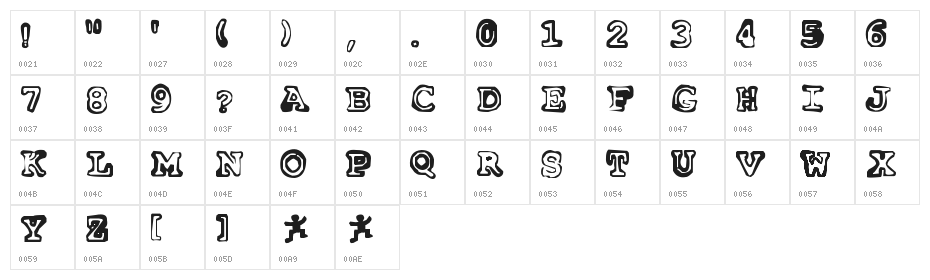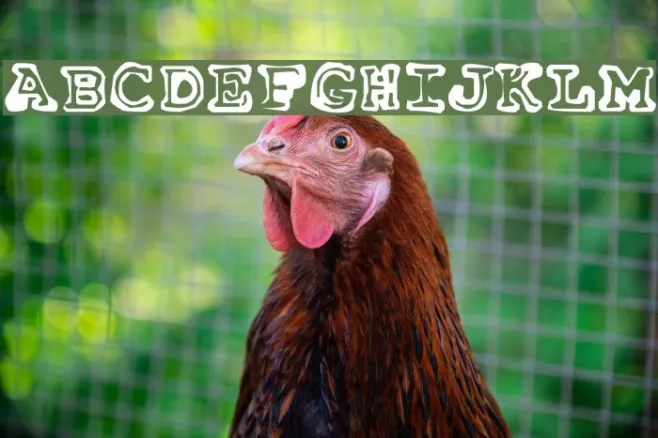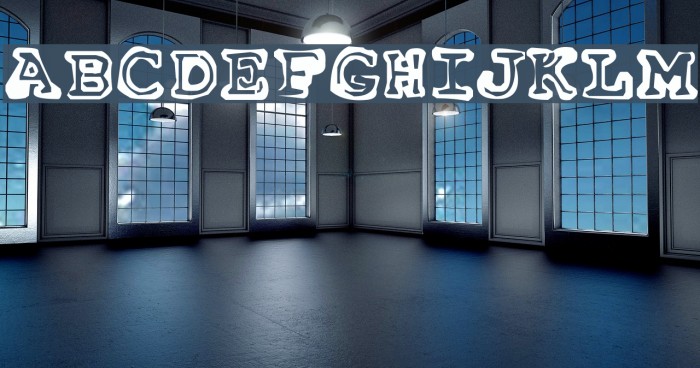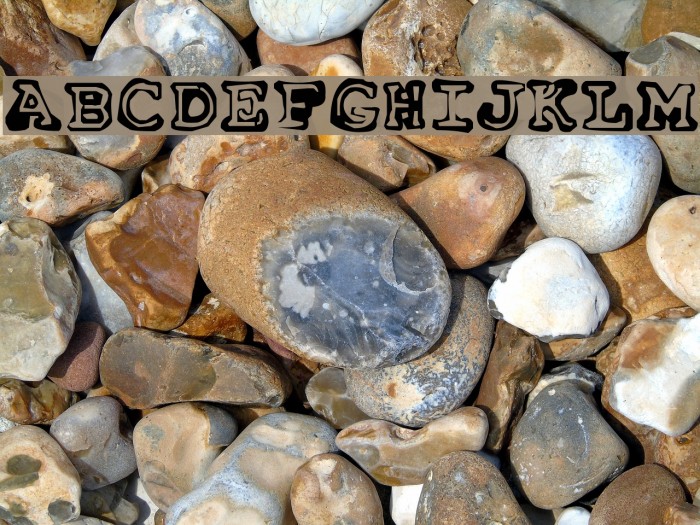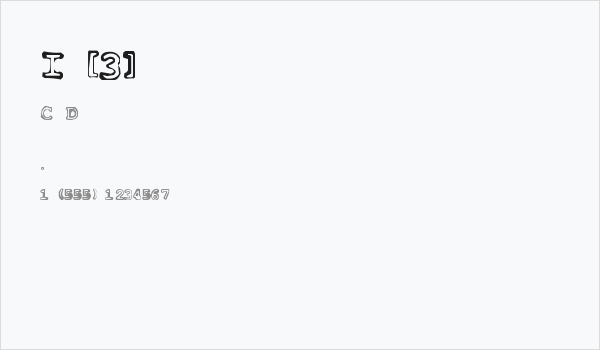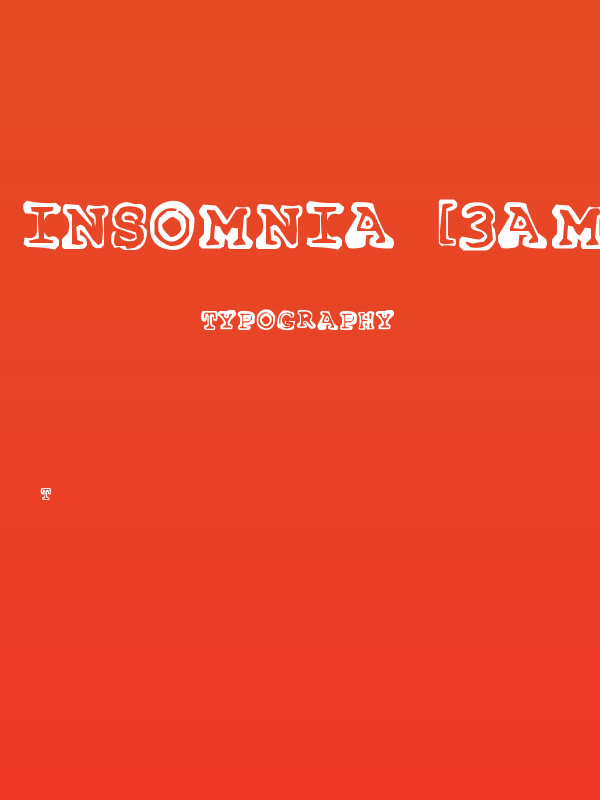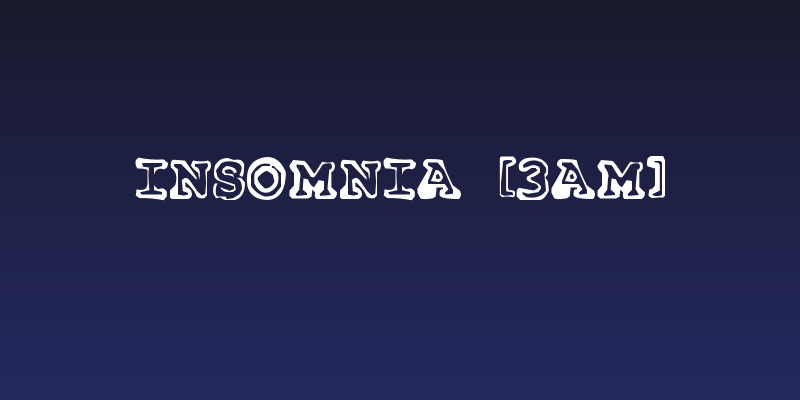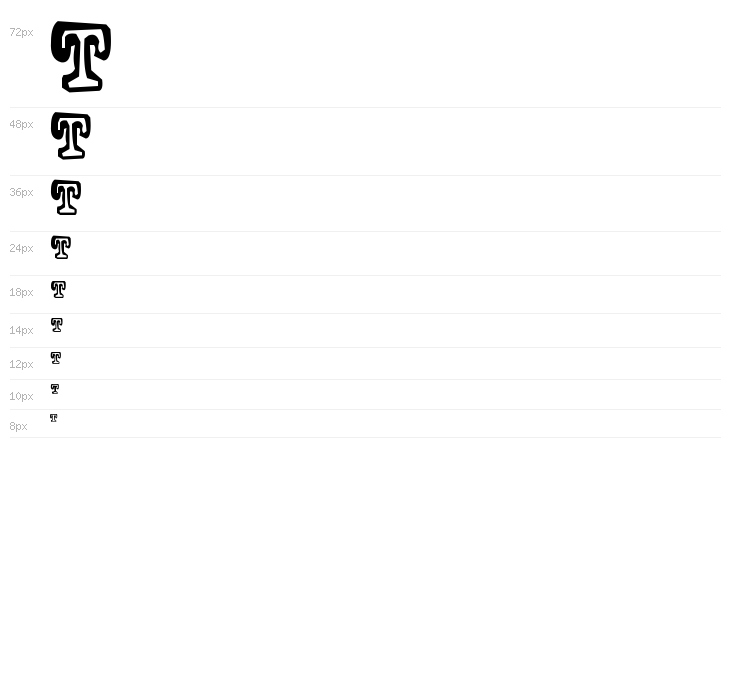
Insomnia [3am] Font
Insomnia [3am] Description
This font features a playful and bold design with a hand-drawn aesthetic. The characters have a unique, irregular outline that gives them a slightly whimsical and artistic feel. The uppercase letters are particularly striking, with varying stroke thicknesses that add to the dynamic appearance. The numbers and special characters maintain this style, ensuring consistency across all glyphs. This font is ideal for projects that require a fun and informal touch, such as children's books, posters, or creative branding materials.
| Proposed Projects | Ideal for children's books, creative posters, and playful branding. |